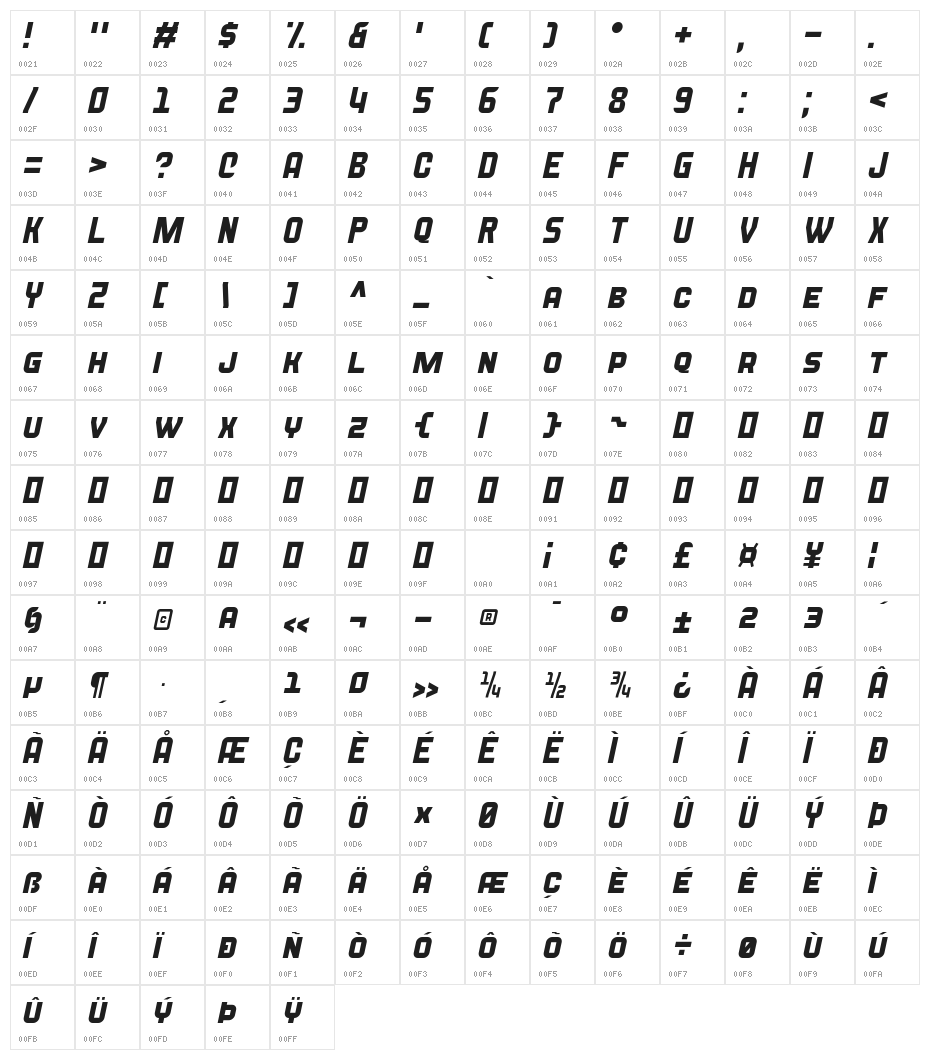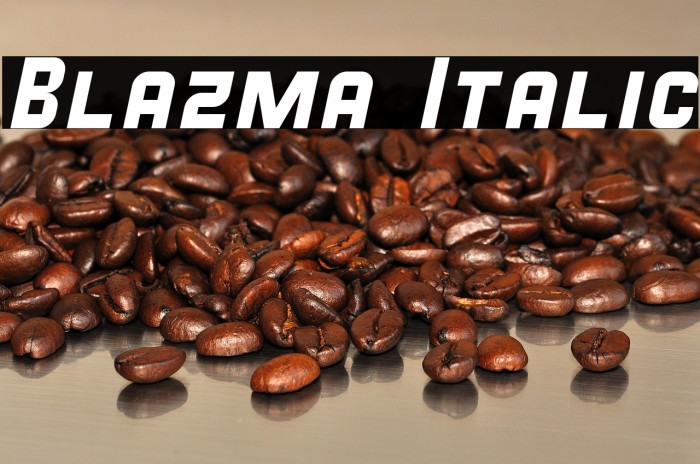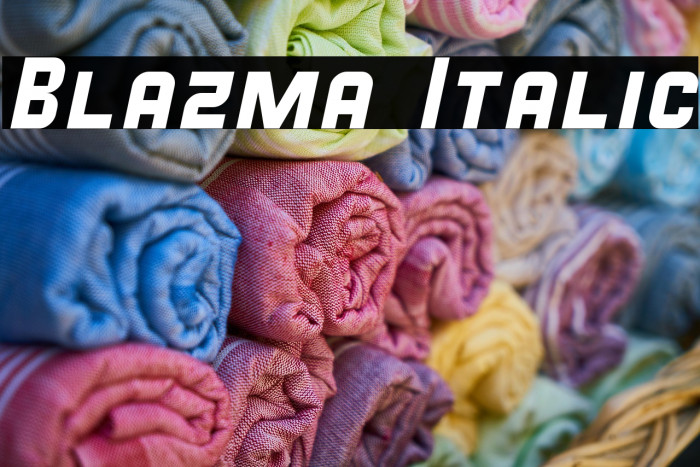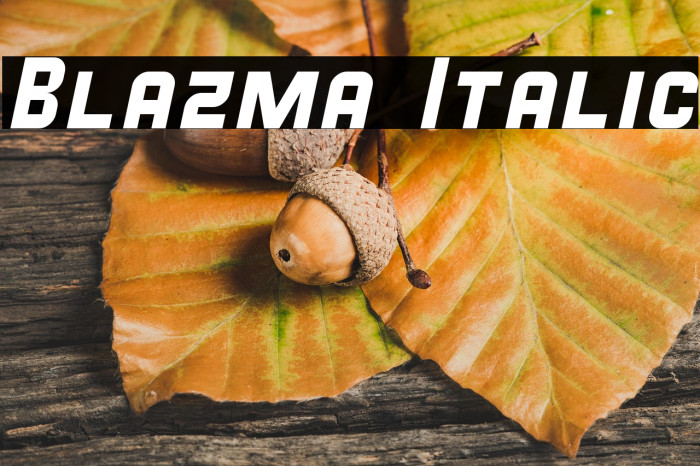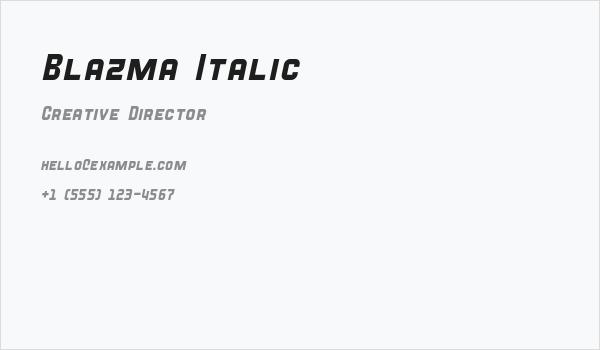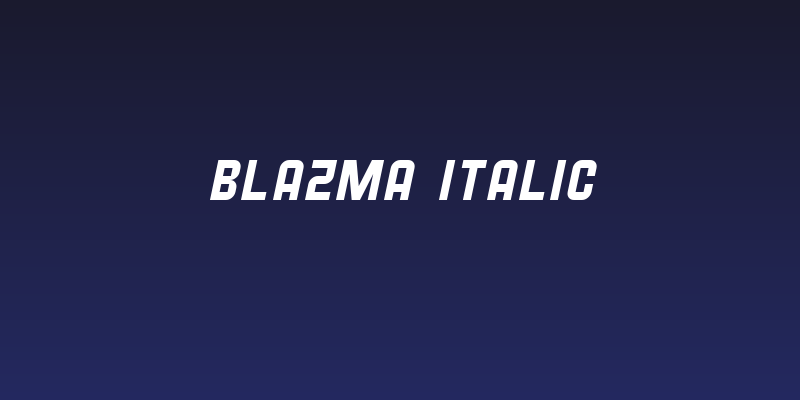
Blazma Italic Font
Blazma Italic Description
This font features a dynamic and modern italic style with a strong, bold presence. The characters are slightly slanted, giving a sense of motion and energy. The strokes are thick and consistent, providing a robust and impactful appearance. The uppercase and lowercase letters maintain a uniform height, contributing to a cohesive look. The numerals and special characters are designed to match the overall style, ensuring versatility across various applications. The font's design is clean and streamlined, making it suitable for contemporary projects that require a bold statement.
| Proposed Projects | Ideal for sports branding, dynamic posters, modern advertising, and impactful headlines. |